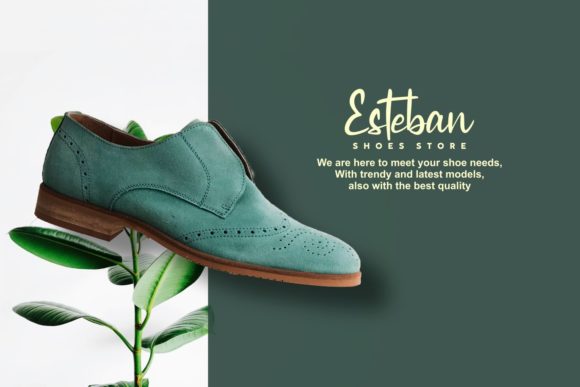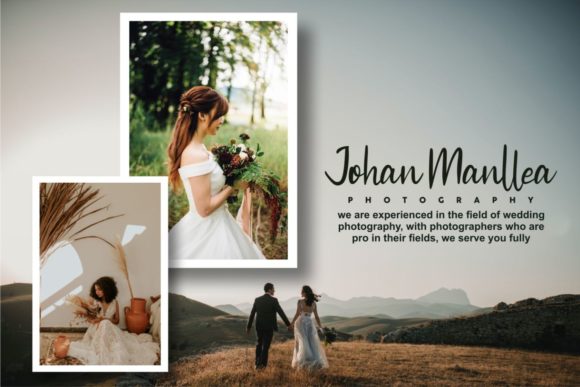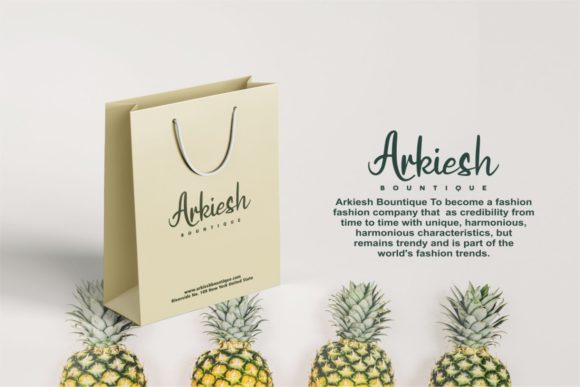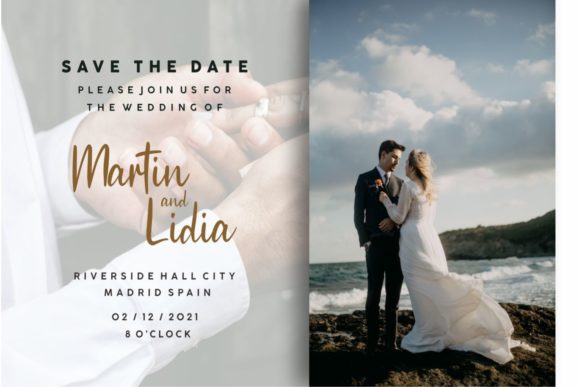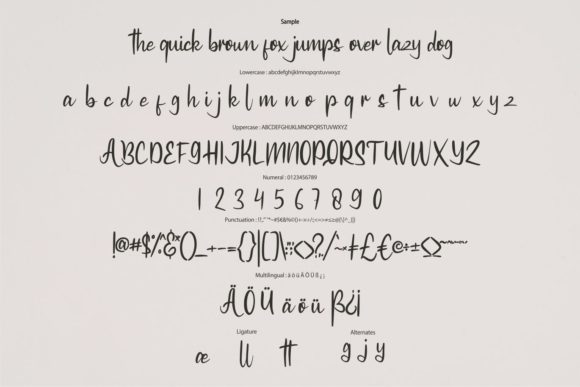
Introducing Esllieba Script Font: Elevate Your Designs with Elegance and Sophistication
Are you a designer or crafter looking for a font that exudes class, elegance, and modernity? Look no further than Esllieba Script Font. This beautiful and refined script font is perfect for a wide range of design applications, from logos and branding to invitations, stationery, wedding designs, social media posts, and more.
The Characteristics of Esllieba Script Font
Esllieba Script Font boasts a unique blend of traditional and modern elements, making it an exceptional choice for designers seeking to create stunning visual content. Some of its key characteristics include:
- Elegant and Refined: Esllieba Script Font features delicate lines, subtle curves, and precise letterforms that give it an air of sophistication and refinement.
- Classy and Modern: The font’s modern aesthetic makes it perfect for designs that require a touch of contemporary style, while its classic undertones ensure it remains timeless.
- Versatile: Esllieba Script Font can be used for a wide range of design applications, from digital to print, and is suitable for various industries, including fashion, beauty, and lifestyle.
Uses of Esllieba Script Font
Esllieba Script Font is an incredibly versatile font that can be used in various design projects, including:
- Logos and Branding: Create a lasting impression with a custom logo or brand identity that showcases your business’s personality and style.
- Invitations and Stationery: Add a touch of elegance to your invitations, greeting cards, and stationery with Esllieba Script Font.
- Wedding Designs: Make your wedding designs truly unforgettable with this beautiful script font, perfect for wedding invitations, programs, and more.
- Social Media Posts: Elevate your social media presence with eye-catching graphics and posts that feature Esllieba Script Font.
Why Choose Esllieba Script Font?
With so many fonts available, why choose Esllieba Script Font? Here are just a few reasons:
- Unique and Exclusive: Esllieba Script Font is a distinctive font that will set your designs apart from the rest.
- High-Quality: This font is crafted with precision and attention to detail, ensuring it looks stunning in any design.
- Easy to Read: Despite its elegant and refined nature, Esllieba Script Font remains highly legible, making it perfect for body text and headlines.
Tips for Using Esllieba Script Font
To get the most out of Esllieba Script Font, consider the following tips:
- Pair it with Other Fonts: Combine Esllieba Script Font with complementary fonts to create visually appealing contrast and hierarchy.
- Experiment with Colors: Try pairing Esllieba Script Font with different colors to create unique and eye-catching effects.
- Use it for Headlines and Titles: Esllieba Script Font is perfect for headlines and titles, where its elegance and sophistication can shine.
| Font Name | Esllieba Script Font |
| Author | FannanStudio |
Esllieba Script Font is a beautiful and refined script font that offers a unique blend of elegance, sophistication, and modernity. With its versatility, high-quality design, and ease of use, it’s an excellent choice for designers and crafters looking to elevate their designs. Whether you’re creating logos, branding, invitations, or social media posts, Esllieba Script Font is sure to make a lasting impression.